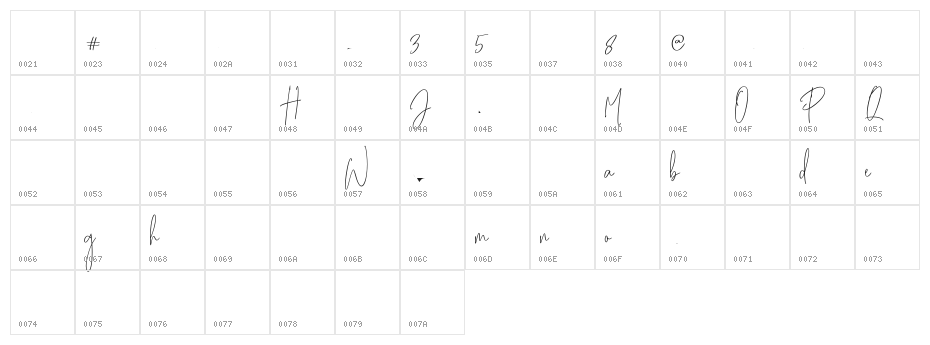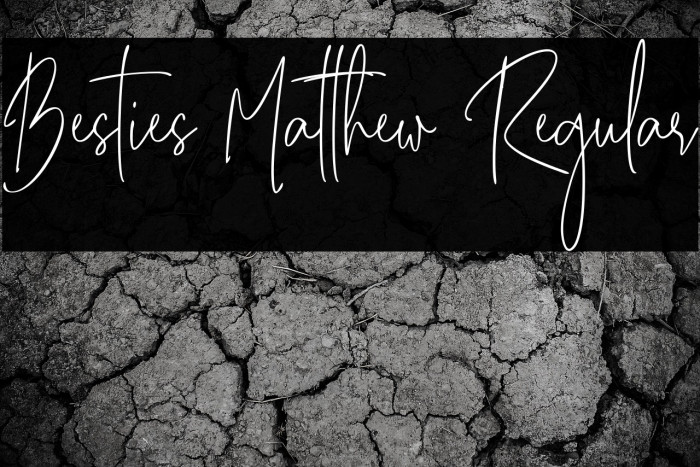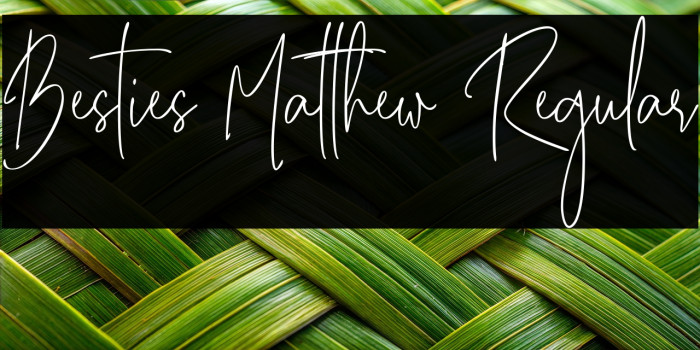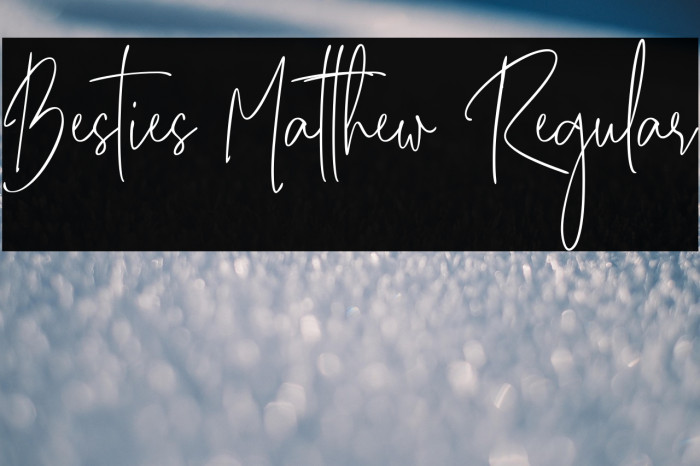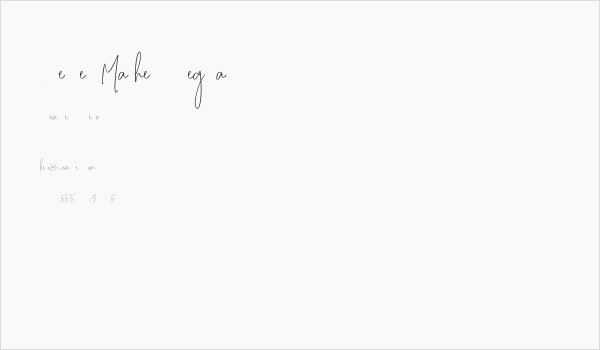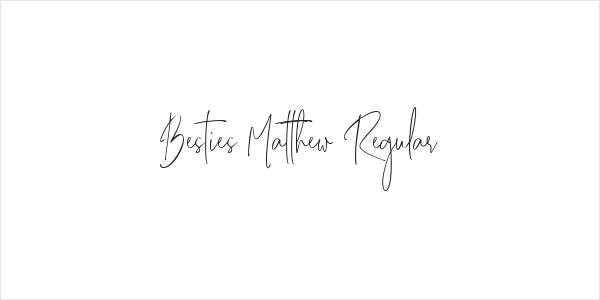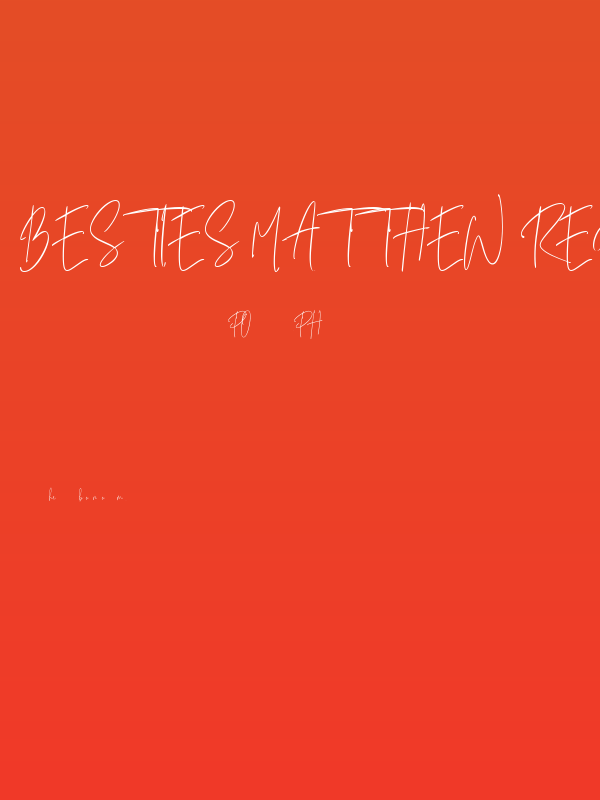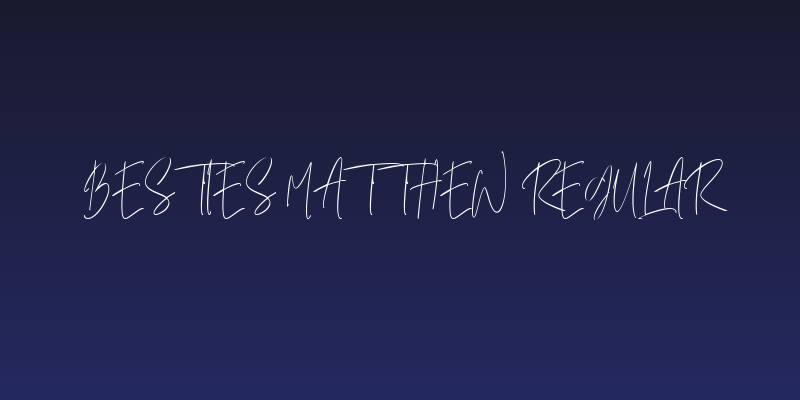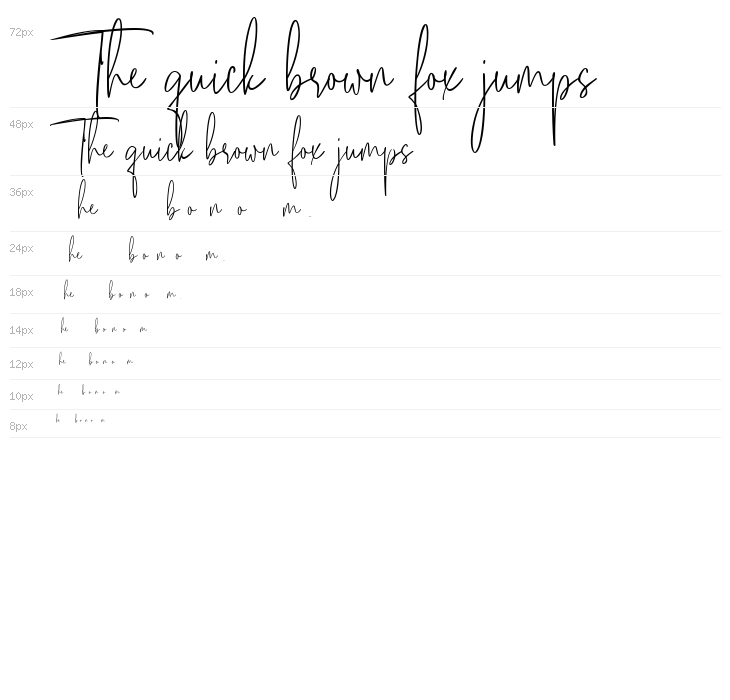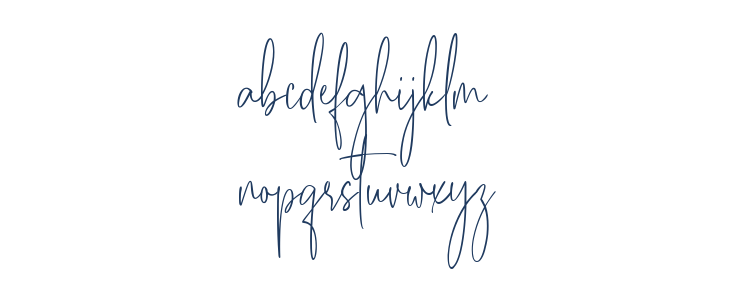
Besties Matthew Regular Font
Besties Matthew Regular Description
This font features a flowing, handwritten style with a modern and elegant touch. The characters are elongated and slightly slanted, giving a sense of movement and fluidity. The strokes are thin and consistent, with a delicate appearance that adds sophistication. The uppercase letters are tall and narrow, while the lowercase letters maintain a cohesive style with smooth curves and loops. The numbers and special characters follow the same aesthetic, ensuring a harmonious look across all elements.